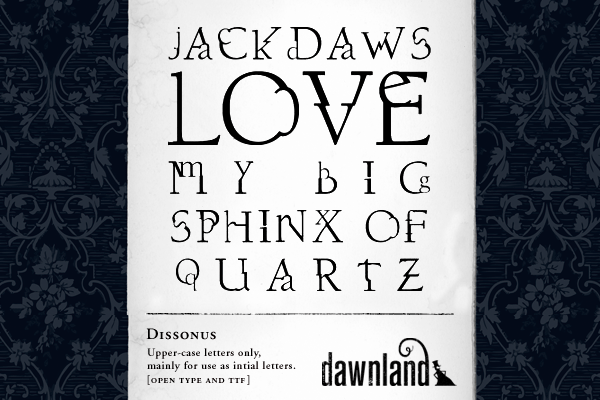
Preview and download Dissouns Font. Created by dawnland in Fancy Distorted styles with Free for personal use license.
upper-case letters only, mainly for use as intial letters. For commercial use - buy the updated version with SmallCaps letters - Dissonus:X for 16.99$ Directly from dawnland via PayPal: dew@dawnland.com or from myfonts.com http://new.myfonts.com/fonts/dawnland/dissonus-x/ |